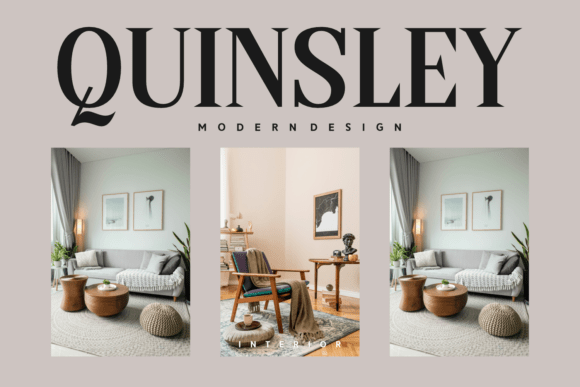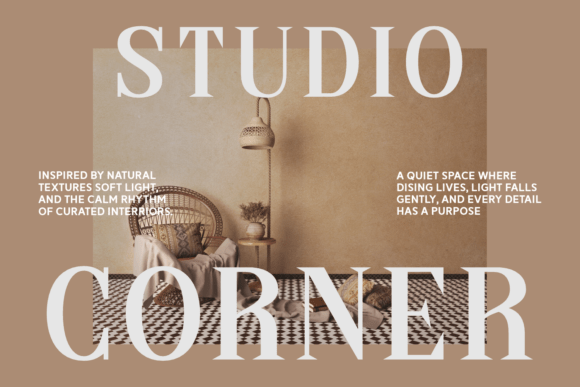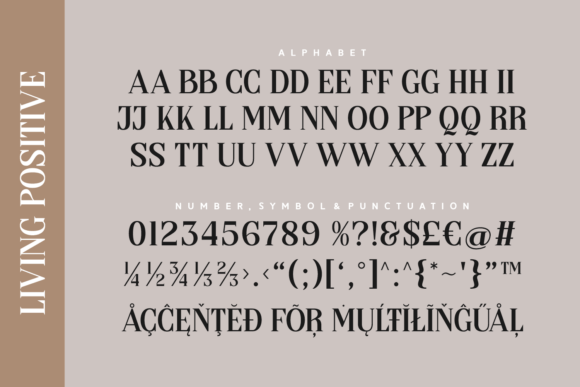
Introduction to Living Positive Font
You’ve spent hours pouring over design inspiration, finally landing on the perfect concept for your latest project. But then, it hits you – the font. The one thing that can make or break the entire look and feel of your design. That’s where the Living Positive Font comes in, a game-changing serif font that’s about to take your creative project to the next level.
As a designer, you’re always on the lookout for that special something that sets your work apart from the rest. And with the Living Positive Font, you’ve got it. This stunning font is the perfect blend of elegance and strength, making it a must-have in your design arsenal. Whether you’re working on a high-end fashion campaign or a sleek magazine layout, the Living Positive Font is the perfect choice for designers who demand the best.
With its sharp edges, tall letterforms, and clean contrast, the Living Positive Font is a design resource like no other. Plus, with a transparent background, you can easily customize it to fit your needs. And the best part? It’s available for free download, making it an invaluable addition to any designer’s toolkit.
Key Features of Living Positive Font
- Unique, hand-drawn style with a transparent background, perfect for adding a personal touch to designs
- Supports a wide range of languages, making it a versatile choice for global creative projects
- Living Positive Font is designed to be highly legible, with clear letterforms and a consistent style
Honest Review: Living Positive Font
I recently stumbled upon the Living Positive Font, a free download that caught my eye. As a designer, I’m always on the lookout for high-quality design resources to elevate my creative projects. In this review, I’ll share my honest thoughts on this font.
- ✨ Clean and modern design aesthetic
- ✨ Friendly and approachable feel, perfect for branding and marketing materials
- ✨ Transparent background, making it easy to use with custom designs
- ✨ Great for creating a cohesive visual identity
- ⚠️ Limited font styles and weights
- ⚠️ May not be suitable for complex or technical text
Overall, I’m impressed with the Living Positive Font. It’s a solid addition to any designer’s toolkit, and its free download makes it an excellent resource for anyone looking to elevate their creative project. While it may not be perfect, it’s a great starting point for creating a high-quality design.
The Living Positive Font is a high-quality, free design resource ideal for creating inspiring and uplifting content for your creative project. With a transparent background, this font is perfect for adding a touch of positivity to your designs.
Getting the Most Out of It
To get the most out of the Living Positive Font, use it in combination with other design elements to create a visually appealing and inspiring design. Experiment with different font sizes, colors, and arrangements to achieve the desired effect.
The Living Positive Font is ideal for:
- Creativity and motivation quotes
- Inspirational social media posts
- Uplifting presentations and documents
- Positive affirmation cards and posters